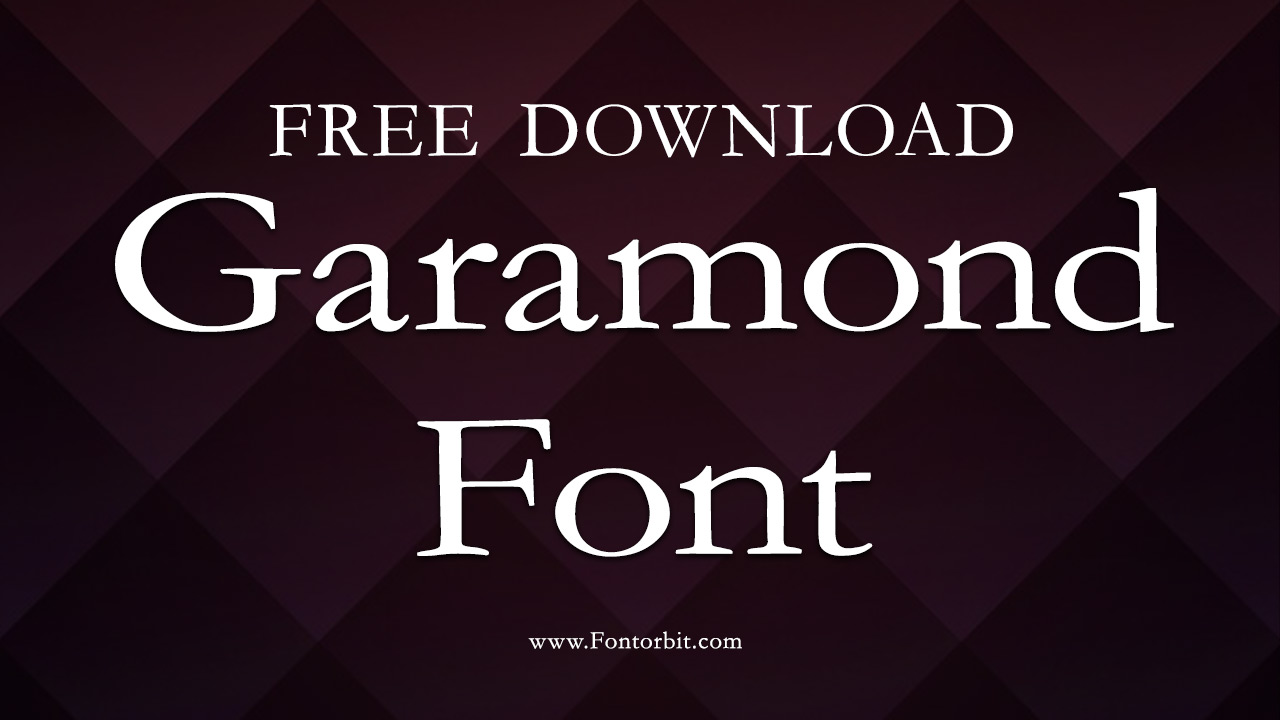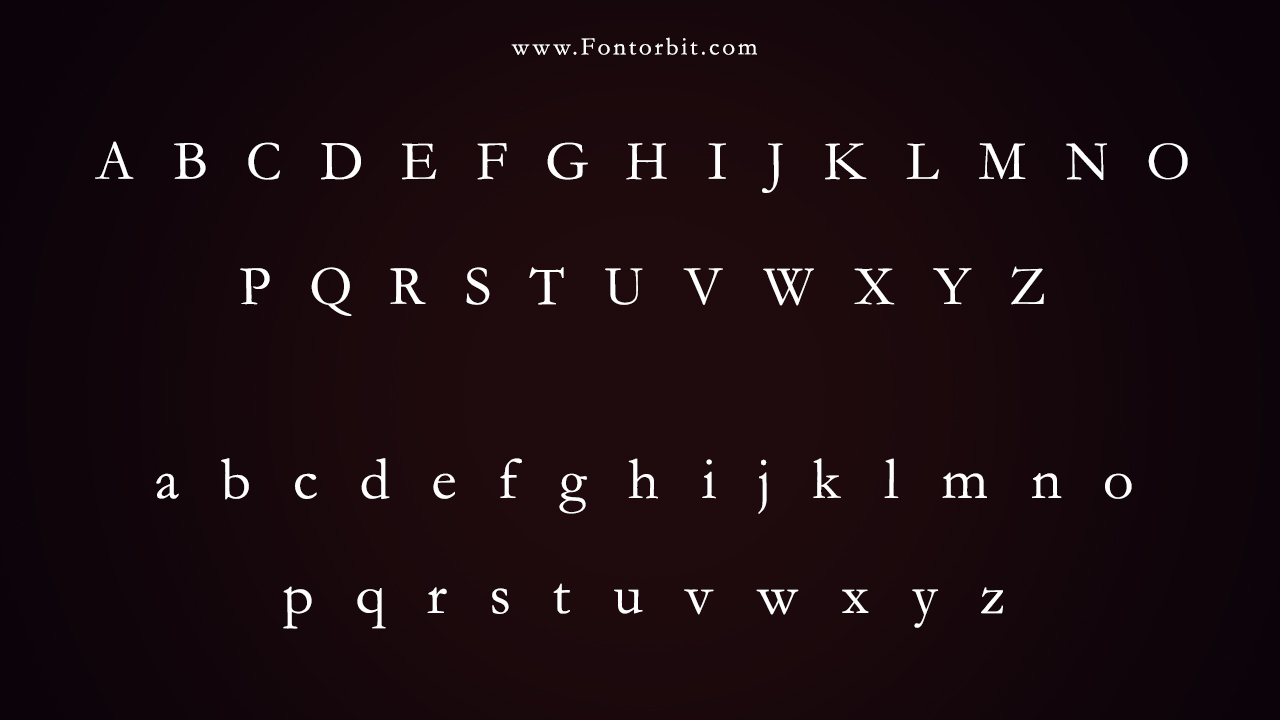
The Garamond font has gained widespread use since designers introduced it in the 16th century as a timeless serif typeface. Designed by Claude Garamond, a French punchcutter and typographer, this elegant font was first released in the 1540s and has since seen numerous variations.
Garamond fonts offer a classic yet refined look with their old-style serif design. Garamond belongs to the serif family of fonts, making it suitable for both body text and titles.
Garamond fonts are loved for their legibility and timeless appeal, making them popular choices for both printed and digital works. The following are the key members of the Garamond family:
Garamond Regular
Each version offers slight variations in style, width, and character appearance, providing flexibility for different design needs.
Notable Uses Of Garamond Font
Garamond is celebrated for its versatility and is a popular choice for formal documents, literature, and academic publications. Designers frequently use Garamond for:
- Book publishing
- Magazines
- Editorial content
- Academic journals
- Corporate branding and logos
Garamond is best used for projects that require a traditional, classic look. Its old-style serif structure makes it perfect for:
- Long-form texts (novels, academic papers)
- Printed media (newspapers, brochures)
- Elegant websites or digital content
- Invitations, certificates, or other formal documents
If your project calls for a clean, legible font with a sophisticated feel, Garamond is a strong choice.
Garamond remains one of the most enduring and respected serif fonts, beloved for its elegance and readability. Whether you are designing a formal document, creating content for print or web, or crafting a brand identity, Garamond offers timeless appeal and versatility. Its variety of styles within the family allows it to adapt to different design needs while maintaining a professional aesthetic.
1.What Is Garamond Used For?
Garamond is a popular choice for books, academic papers, magazines, and formal documents because it offers excellent readability and a classic appearance.
3.Is Garamond Good For Web Design?
Yes, Garamond can work well for web design, especially for long-form content due to its high readability.
4.What Font Family Is Garamond?
Garamond is part of the serif font family, known for its small decorative lines at the end of letter strokes.
5.Can I Use Garamond For Logos?
Yes, Garamond is a great choice for logos, especially for brands seeking a classic, timeless, or academic feel.
6.Is Garamond Better For Print Or Digital?
Garamond is suitable for both, but it is particularly favored for print materials due to its legibility and classic design.